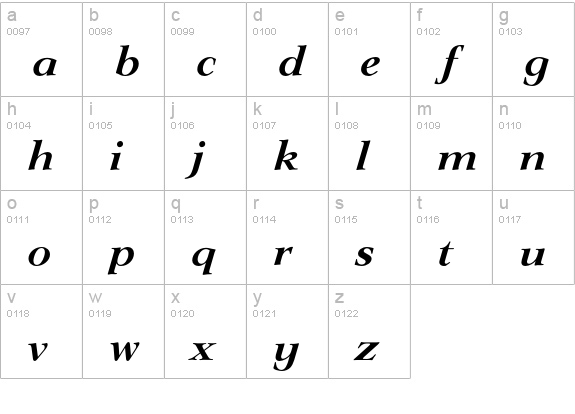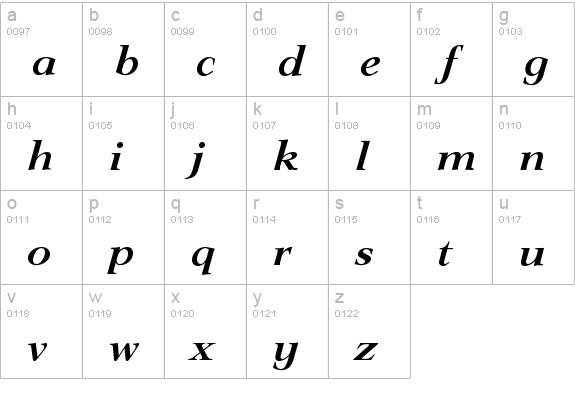
Lingwood-DemiBoldIta is a captivating and versatile font that effortlessly combines elegance and boldness. Its refined italicized style exudes sophistication and grace, making it the perfect choice for projects that require a touch of modernity and charm. This exquisite font offers a unique blend of sleek lines and strong presence, making it ideal for creating eye-catching designs across various platforms. Whether used for branding, editorial design, or web content, Lingwood-DemiBoldIta delivers a compelling visual impact that commands attention. What's more, this exceptional font is available for free download at FontsMarket.com, allowing designers and creatives to access its beauty and functionality without any cost. Embrace the allure of Lingwood-DemiBoldIta and elevate your projects with its distinctive flair and timeless appeal.